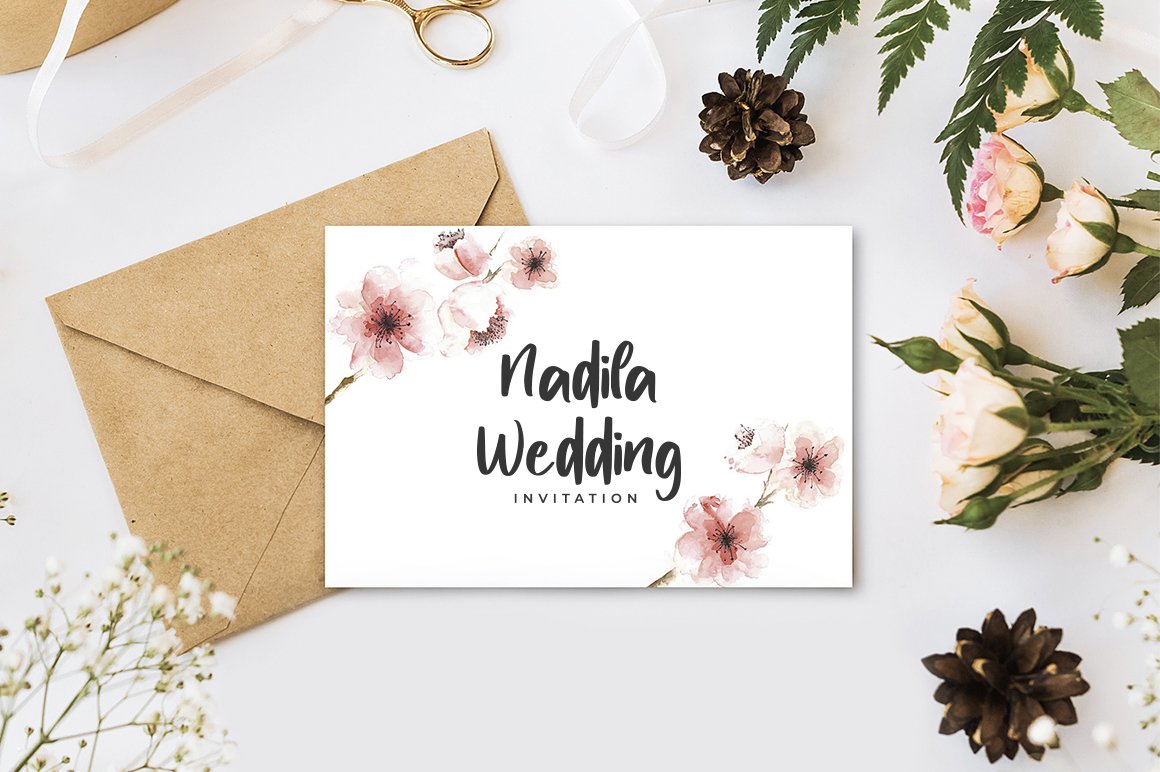
MyLove Font is beautiful with good flow and unique alternate font.
inspired by a sweet love contemporary handwriting fonts with ligatures and alternative styles ready to add unique look and bloom on your design
It easily cooperating together For Magazine, Movies, or Book Titles. For Photography, Wedding Invitation, Restaurant Menu or T-shirt Design. For Flyers, Banner Ads, web and printing. From Food and Fashion to a Cosmetics product
Font Features :
- Upper + Lowercase Letters
- Numbers + Punctuation
- Ligature Feature
- OpenType features
- Multilingual support
- Free Bonus Swash